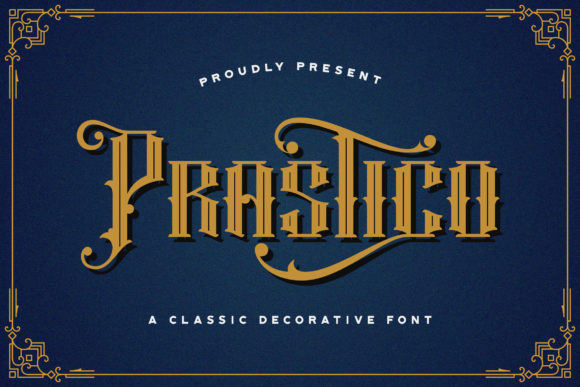
Behold Prastico, a typographic masterpiece that captures the spirit of authenticity and audacity in a single font. This blackletter font, hailing from the creative minds at StringLabs, is not just a design choice; it's a statement piece that elevates your creations to new heights.
Immerse yourself in the world of Prastico, where every letter carries a weight of history, a whisper of bygone eras. Its bold strokes and intricate details evoke a sense of nostalgia, while its modern twist ensures it remains relevant and captivating.
With Prastico, you don't just type words, you craft experiences. Your designs will exude an air of sophistication, a touch of intrigue, and an undeniable allure that sets them apart from the ordinary. Whether you're crafting logos, posters, branding materials, or simply adding a touch of personality to your digital creations, Prastico is your secret weapon.
Unleash your creativity and let Prastico guide you on an artistic journey like no other. Explore the boundless possibilities it offers, and discover how effortlessly it transforms your words into captivating works of art. Let the ink flow, let your imagination soar, and let Prastico be your companion on this extraordinary adventure.